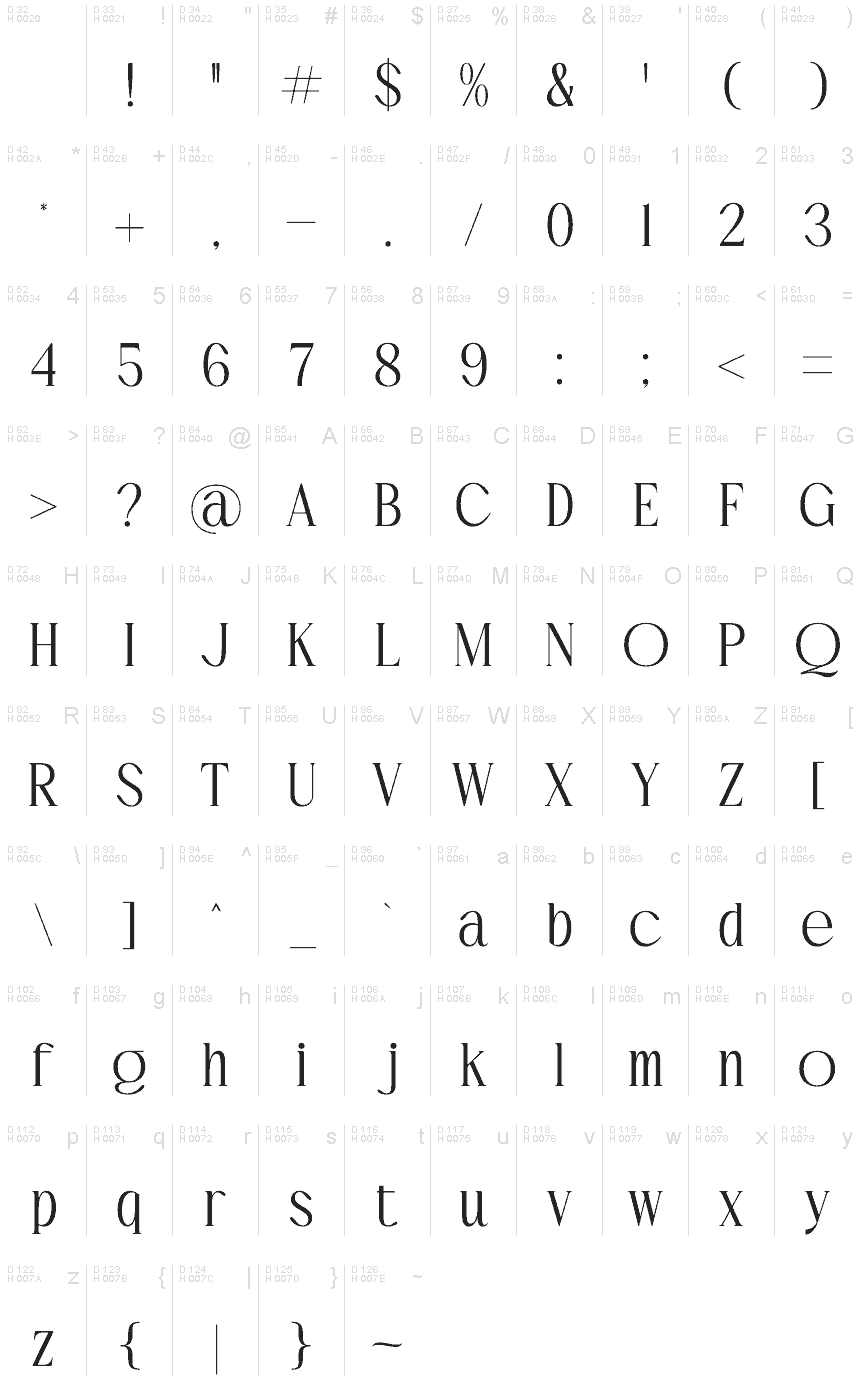
Casftego
Casftego font is a classy serif typeface designed by Storytype Studio. A beautiful combination of classic and modern shapes creates a majestic aesthetic with a feminine touch. Smooth curves, sharp hooks, and strong contrast define this dazzling font whose versatile style is an outstanding choice for professional projects.
This free serif font can be used to create book covers, magazine titles, headlines, newspapers, branding designs such as logos or packaging designs as well, billboards and promotional materials (print/digital), ads and banners – to name just a few ideas.